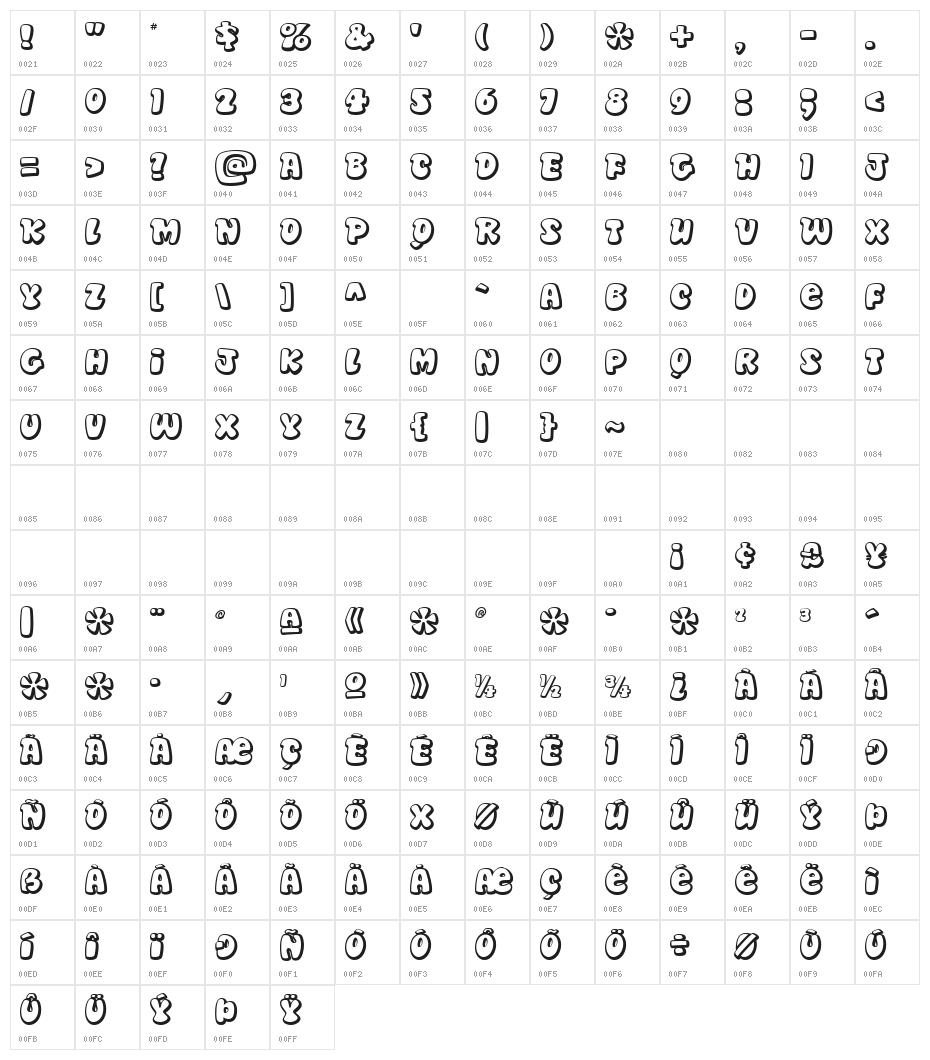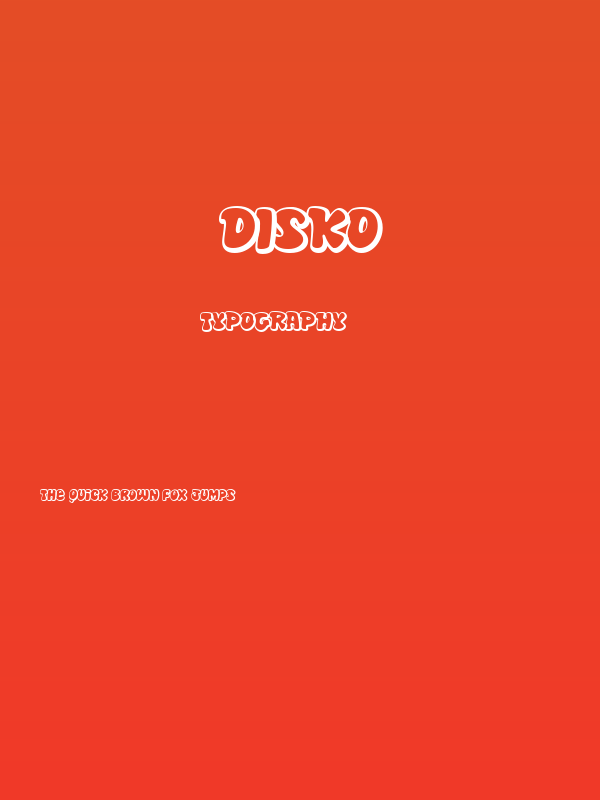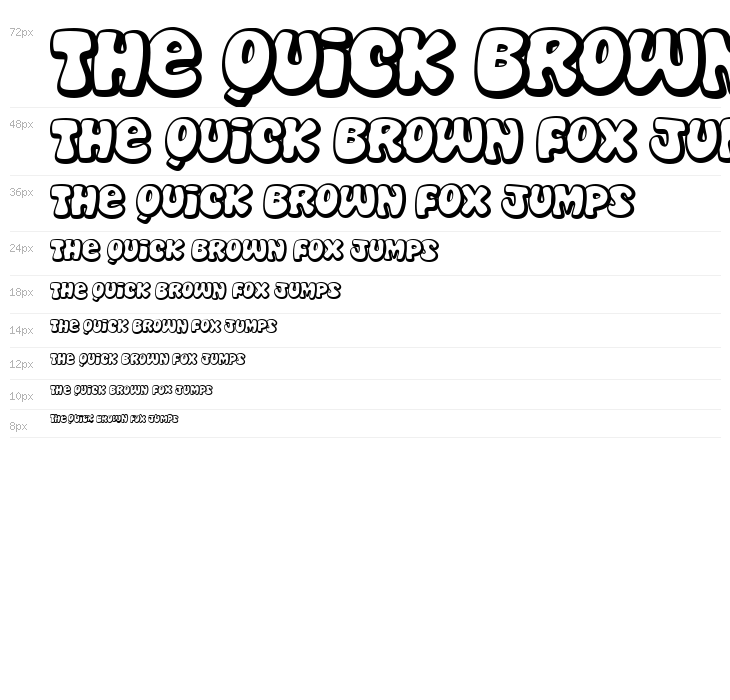
Disko Font
Disko Description
This playful and bold font features thick, rounded letters with a bubbly, cartoon-like appearance. The characters are outlined, giving them a three-dimensional effect that adds to their dynamic and lively style. The font is highly legible and stands out due to its substantial weight and unique design. It includes a full set of uppercase and lowercase letters, numbers, and a variety of special characters, making it versatile for different uses. The overall look is fun and energetic, perfect for projects that require a touch of whimsy and creativity.
Overall StylePlayful, Cartoon-like, Fun
Proposed ProjectsIdeal for children's books, playful branding, party invitations, and comic-style graphics.